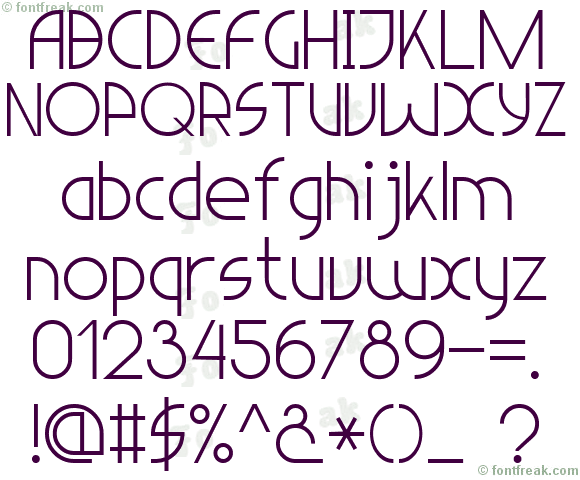
Light Sans Serif 7
About Light Sans Serif 7
Light Sans Serif 7 by Style-7 is a refined sans-serif typeface that embodies a modern aesthetic while maintaining a sense of simplicity and elegance. This font is characterized by its light stroke weight, creating a clean and airy appearance that makes it versatile for a wide range of applications. The consistent spacing between the letters enhances readability, making it an ideal choice for both digital and print media. With a minimalistic design, it features no excessive decorative elements, allowing the content it conveys to take center stage.
This font excels in various use cases; it is particularly well-suited for website headers, where clarity and style are paramount. Additionally, it can be effectively utilized in branding materials, such as business cards and letterheads, giving a professional touch to any small business. Light Sans Serif 7 is also perfect for modern restaurant menus, where the combination of readability and elegance can enhance the dining experience. Graphic designers may find it ideal for editorial layouts, as its clean lines provide a polished look that complements imagery and other design elements.
Target audiences for this font include graphic designers looking for fresh typographic options, small business owners aiming to establish a strong brand identity, and content creators seeking a modern touch for their projects.
The standout quality of Light Sans Serif 7 lies in its ability to balance simplicity with sophistication. This font’s versatility and understated elegance make it a valuable addition to any designer's toolkit. With a “Light Sans Serif 7 font free download” available, it’s accessible for anyone looking to elevate their design projects with a contemporary typeface that meets both aesthetic and functional needs.